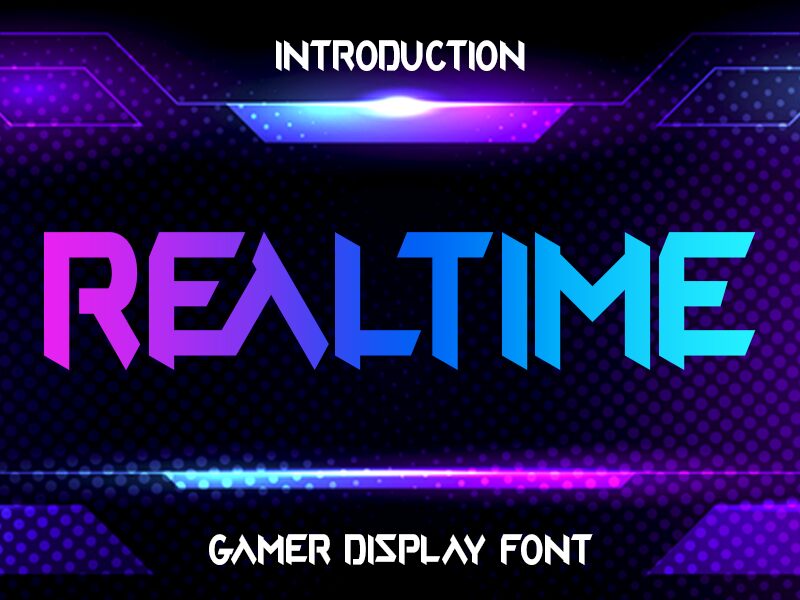
Realtime Gamer is a gamer display font designed by Creaditive Design. With its bold and edgy style, this font is perfect for projects that require a high energy and competitive vibe. From esports team logos to Twitch stream overlays, Realtime Gamer is the go-to font for any gaming-related project. Its semi-bold typeface makes it easy to read even at smaller sizes, while its wide width gives it maximum impact. Whether you're designing an app or creating a banner for a live gaming event, Realtime Gamer will make your project stand out from the crowd.